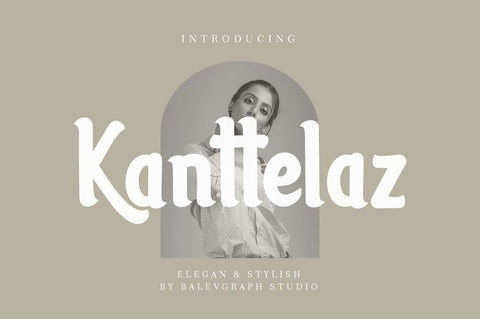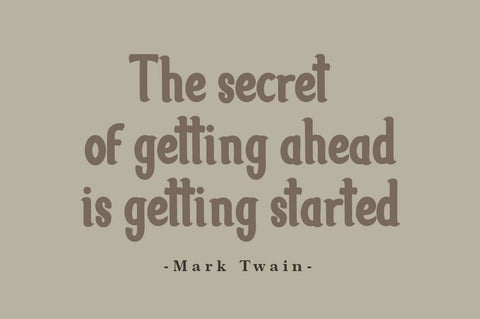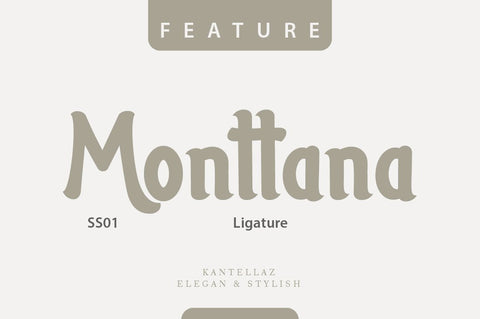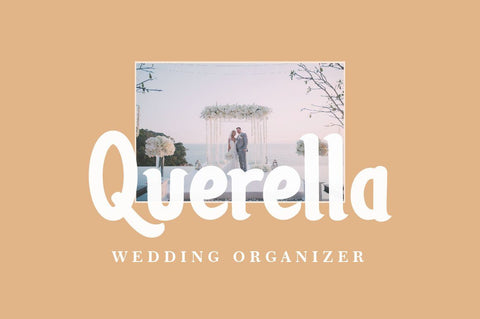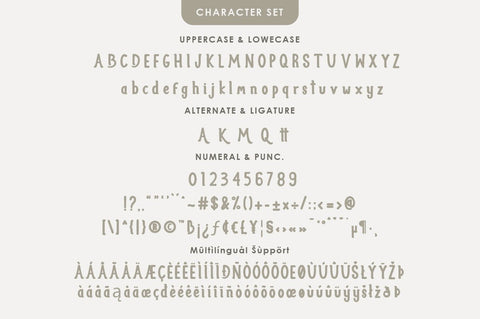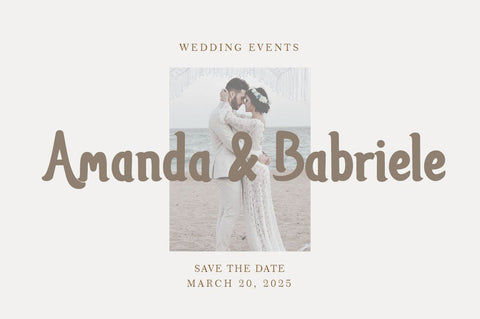
Kanttelaz Font
Kanttelaz is a bold and elegant handwritten font. Its flexibility and neat style will brighten up each of your designs. Have fun with this cool font and explore its endless variations.
- Uppercase, Lowercase, Numerals & Punctuations
- Ligature & Alternate
- Multilingual support